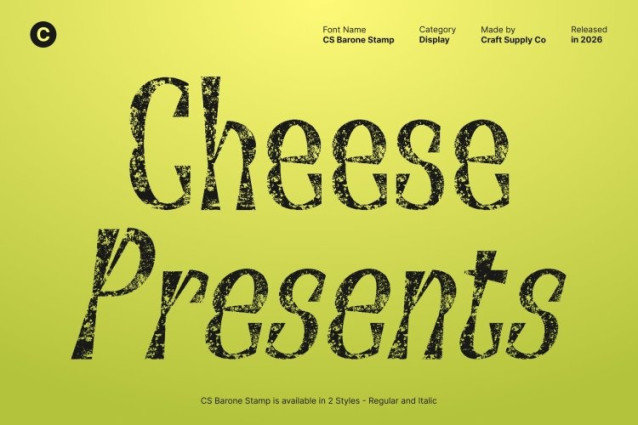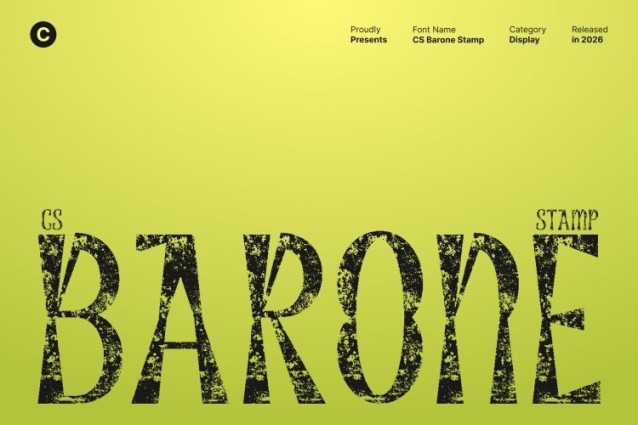
CS Barone Stamp Font
CS Barone Stamp Font This is a decorative display font inspired by groovy, retro aesthetics, infused with a stamped texture that adds a tactile, vintage feel. Its dynamic curves, bold proportions, and expressive forms create a lively visual rhythm, while the stamp effect introduces an artistic, slightly worn character that enhances its nostalgic charm.
Funky Letterforms with Vintage Texture
The fluid shapes and playful stroke variations of this font radiate a free-spirited and cheerful energy. The stamped details bring subtle imperfections that give each letter an authentic, handcrafted look, blending funky retro vibes with an old-school, artistic texture that feels both expressive and organic.
Perfect for Energetic and Retro-Inspired Design
Ideal for retro-themed branding, music posters, festival visuals, packaging, and creative campaigns, this font delivers strong personality and visual movement. The combination of bold forms and vintage stamp texture makes it especially effective for designs that aim to feel fun, expressive, and visually memorable.
Expressive, Playful, and Unforgettable
This font stands out through its unique blend of groovy style and stamped authenticity. Its bold yet approachable design brings joy, creativity, and character to any project, making it the perfect choice for designers who want typography that feels playful, artistic, and full of retro soul.